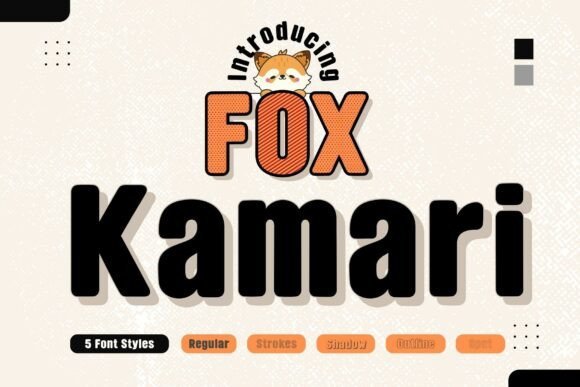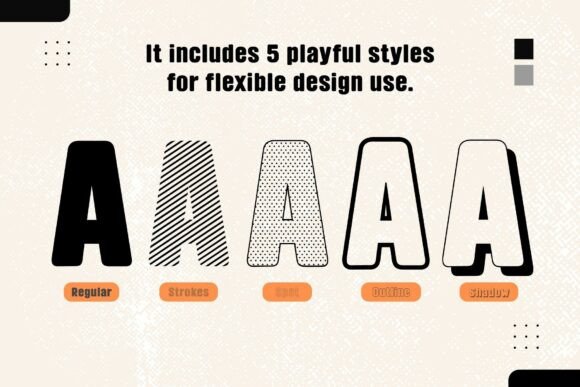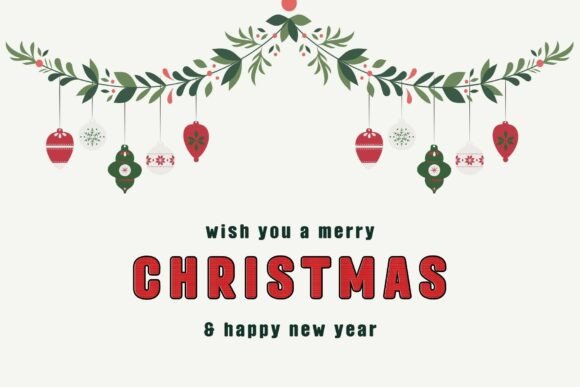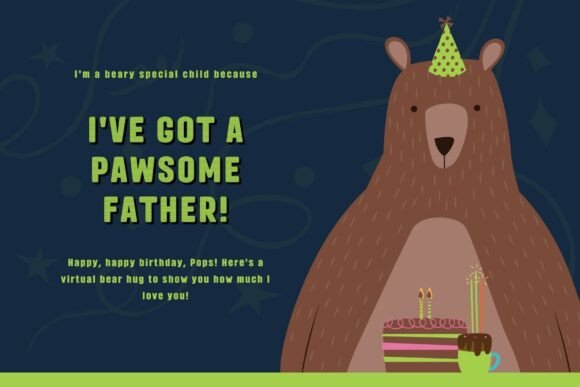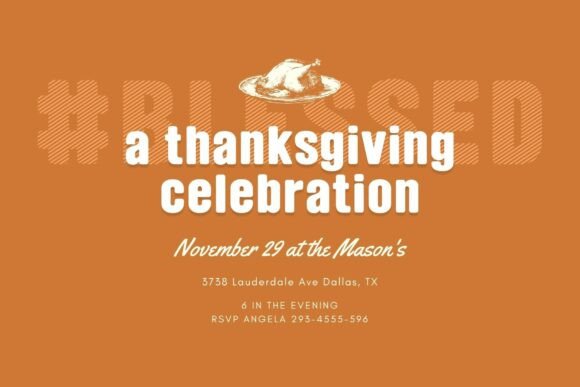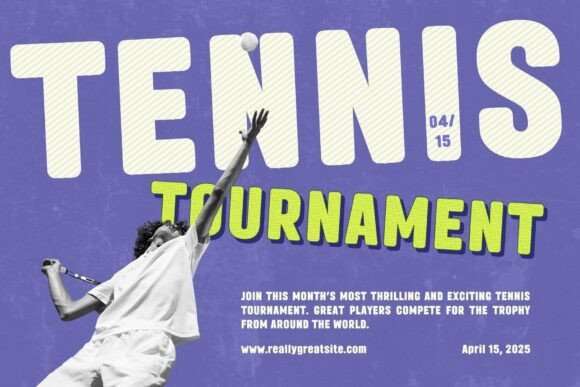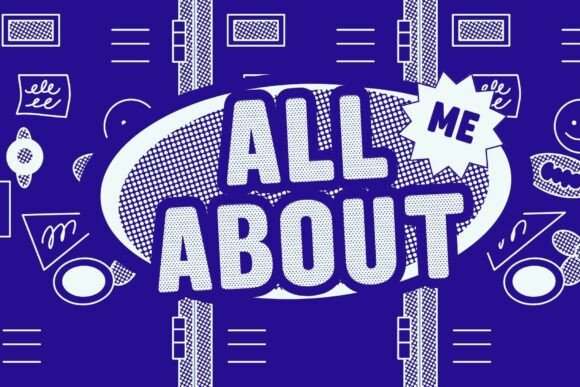
Bring a Playful Twist to Your Designs with Fox Kamari Font
Who hasn’t felt the rush of excitement when creating something new and fun? You know, that moment when the ideas start flowing, and your imagination runs wild. It’s a feeling we designers live for, and it’s exactly what the Fox Kamari Font is designed to evoke.
Introducing Fox Kamari Font, a bold and playful display font family that’s perfect for adding a dash of fun to your projects. With its chunky shapes and smooth curves, this font is sure to bring a smile to your face and capture the attention of your audience. Whether you’re working on a children’s project, playful branding, or cartoon graphics, Fox Kamari Font is the perfect tool to add a friendly and expressive character to your designs.
As a designer, you know how valuable a versatile font can be. With Fox Kamari Font, you’ll have 5 creative styles to choose from, allowing you to mix and match for unique and flexible design results. It’s the perfect addition to your design toolkit, and we can’t wait to see what you create with it!
Fox Kamari Font Key Features
- Unique Characteristics: Fox Kamari Font features a unique blend of modern and traditional elements, making it perfect for designs that require a touch of sophistication and elegance.
Designer Review: Fox Kamari Font
Overall, I was excited to dive into the Fox Kamari Font. Here’s my honest take:
- The font’s modern and sleek aesthetic is a great fit for contemporary designs.
- It comes with a wide range of language support, making it a great option for international projects.
- The font is highly customizable, allowing users to adjust the weights and styles to suit their needs.
- The font’s legibility could be improved, particularly at smaller text sizes.
- The font family is relatively small, with only 10 styles available.
- The font’s x-height could be adjusted for better readability in certain contexts.
The Fox Kamari Font is a solid addition to any designer’s toolkit. While it has its limitations, the font’s modern aesthetic and customization options make it a great choice for a wide range of projects. With a bit more development, I believe this font has the potential to become a go-to option for designers.
Tips for Getting the Most Out of Fox Kamari Font
Experiment with different font sizes, colors, and combinations to create a unique visual style.
Use the font in conjunction with bold or italic styles to add emphasis and create visual interest.
Consider using the font in a limited color palette to create a cohesive look.
Alternatives to Fox Kamari Font
1. Bangers Font
The Bangers Font is a bold, graffiti-inspired sans-serif font. It’s ideal for creating eye-catching headlines and titles that require a strong, edgy feel. Compared to Fox Kamari Font, Bangers is more aggressive and attention-grabbing, making it suitable for music, entertainment, and youth-oriented brands.
The Great Vibes Font is a modern, elegant script font that exudes a sense of sophistication and refinement. It’s perfect for creating high-end, luxurious designs that require a touch of elegance and sophistication. In comparison to Fox Kamari Font, Great Vibes is more polished and refined, making it suitable for fashion, beauty, and high-end lifestyle brands.